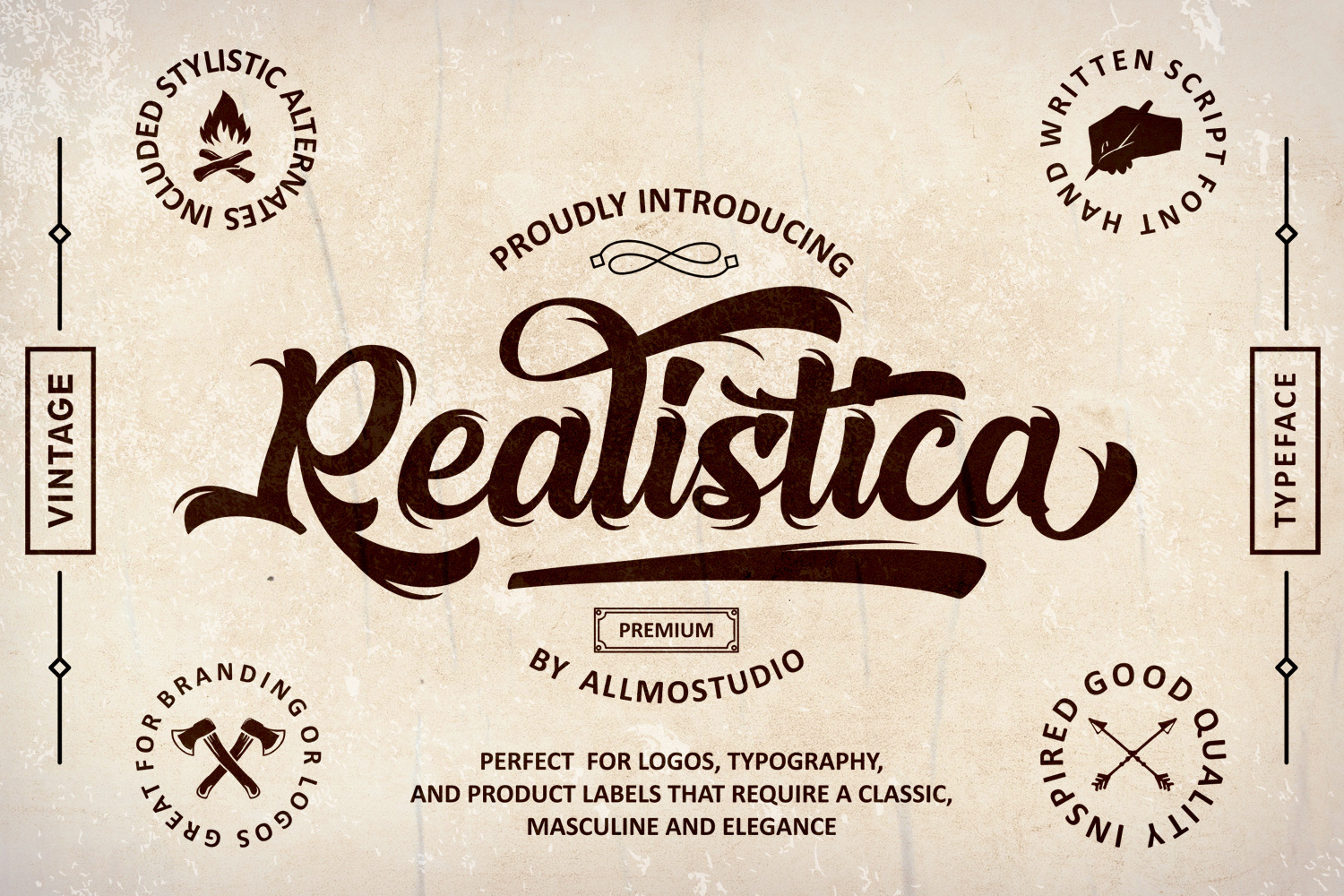
Realistica Font
Realistica Font was made with a touch of vintage and combinating with modern design I've been created hand lettering to make your design more awesome. This font will work on any media, perfectly match your vintage design, t-shirt, logo, labels, badges, posters and etc.